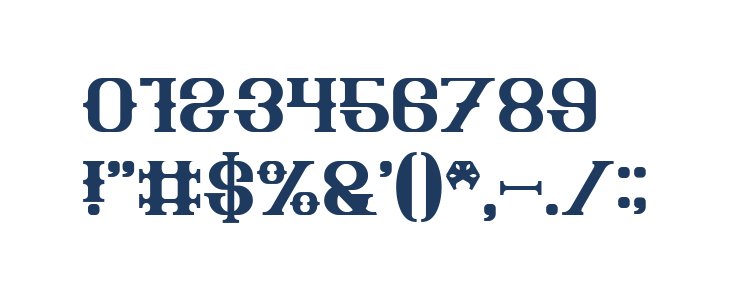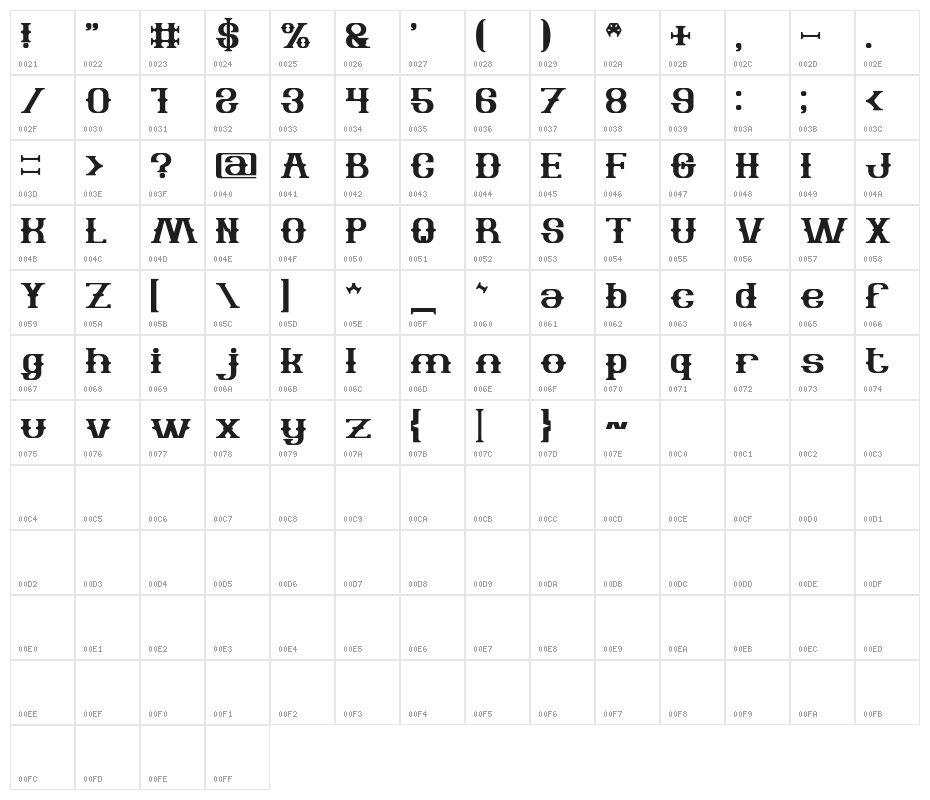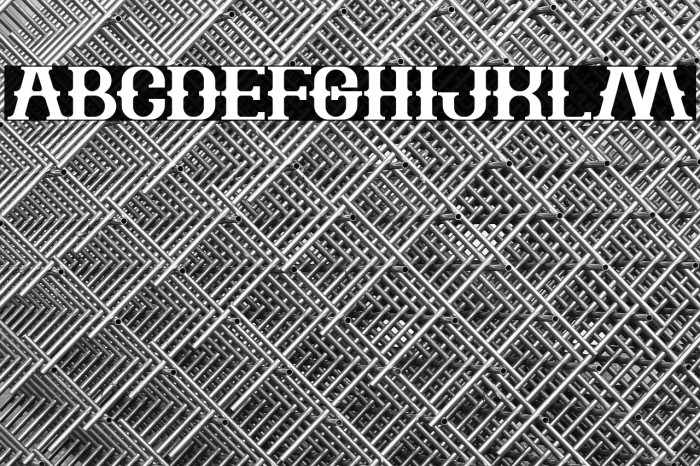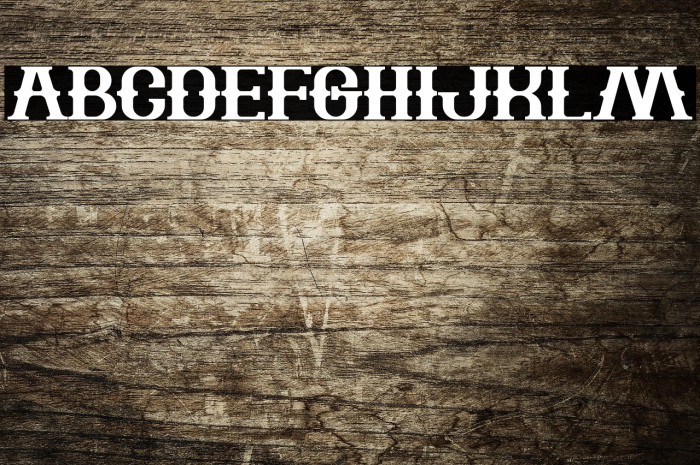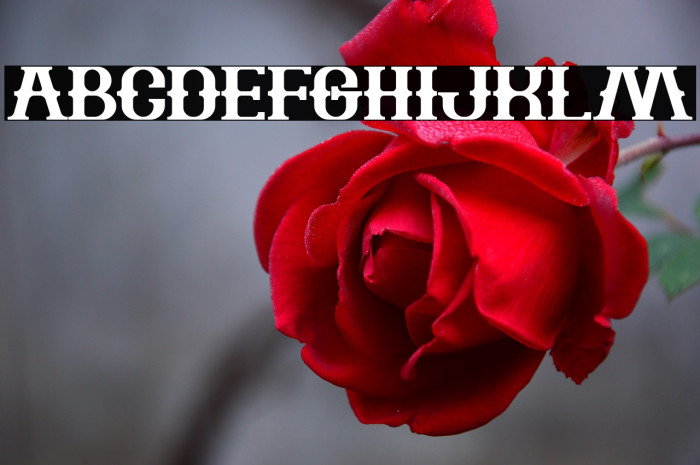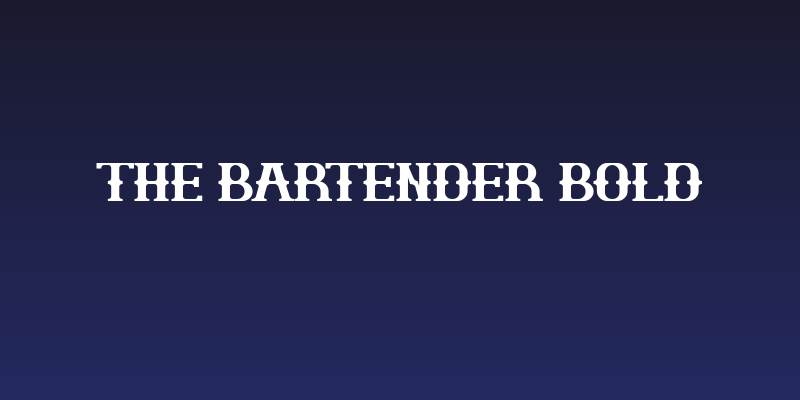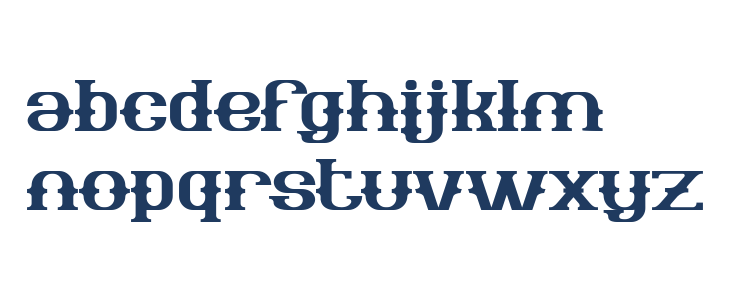
The Bartender Bold Font
The Bartender Bold Description
This font features a bold and striking design with a distinctive vintage flair. The characters are heavily stylized with thick, consistent strokes and unique serifs that give it a decorative appearance. The uppercase and lowercase letters maintain a uniform weight, contributing to its bold presence. The numerals and special characters are equally bold, with a playful yet structured design that complements the overall style. This font is ideal for projects that require a strong visual impact and a touch of nostalgia.
| Proposed Projects | Ideal for branding, poster design, headlines, and any project needing a vintage or bold aesthetic. |